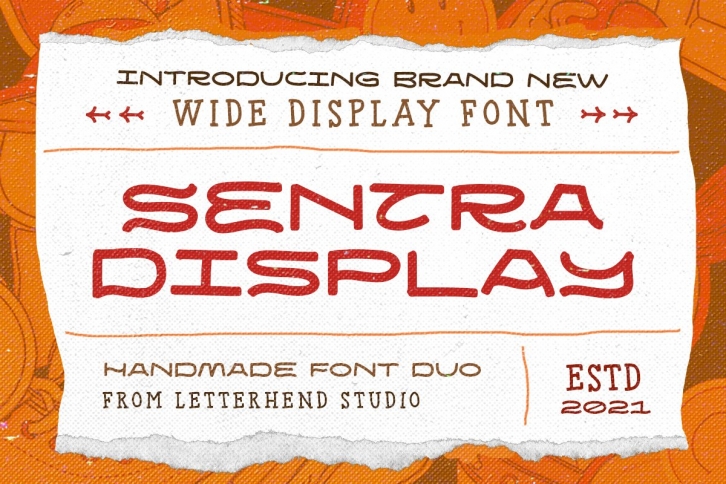
Sentra Display is a beautiful font that was designed by Letterhend. It's a great choice for designers and creatives who need such a font. It was released on November 15, 2021 and the file size is 21.13 MB. Sentra Display may give a more youthful, expressive and casual look to your project. It is a very beautiful, refined, elegant, and high-quality font.